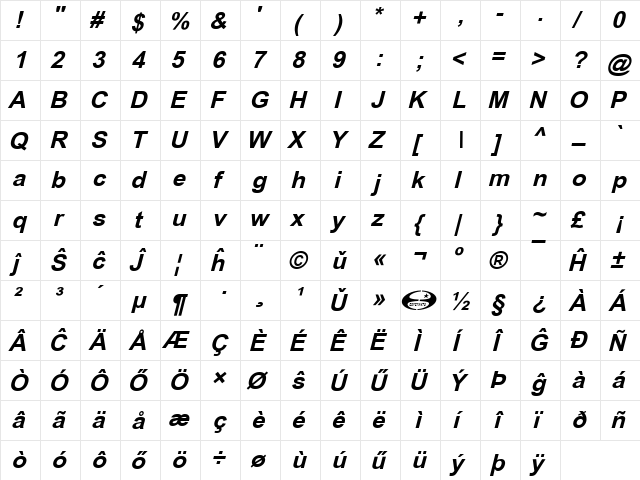
Orion Esperanto Dika Kursiva
Design Context for Orion Esperanto Typeface
Orion Esperanto is a composed and adaptable typeface that performs quietly and consistently across a wide range of design contexts. The dynamic lean of this cut emphasises speed and emphasis in any layout.
Pro Tip: Use Orion Esperanto for emphasis, pull quotes, and subheadings where its slanted energy can add rhythm to the layout.